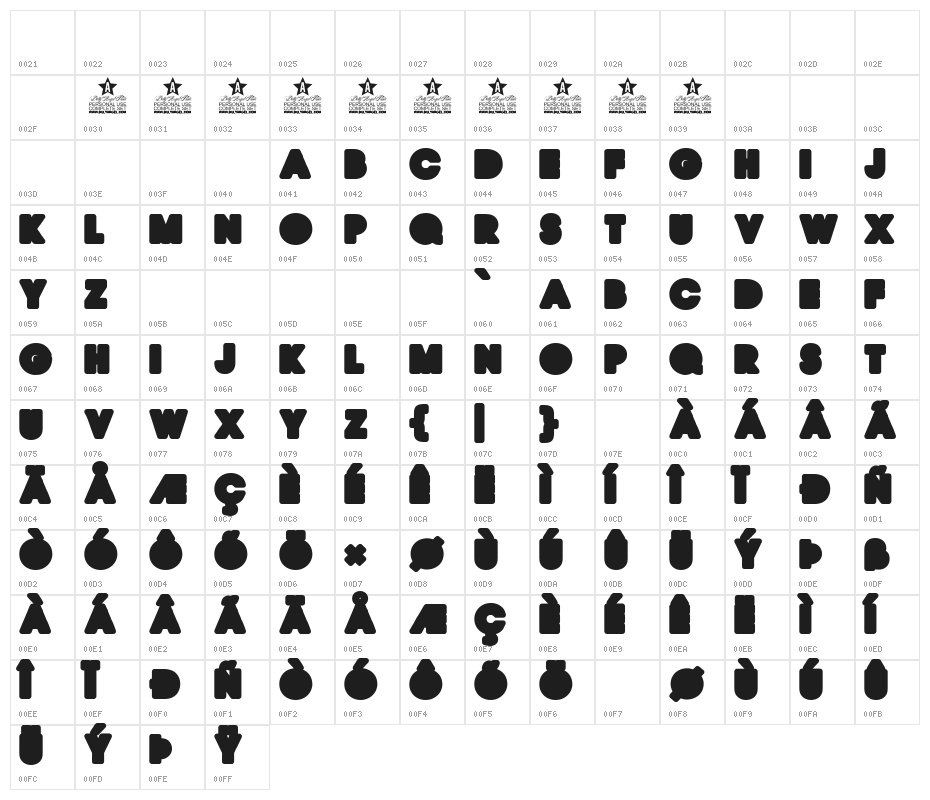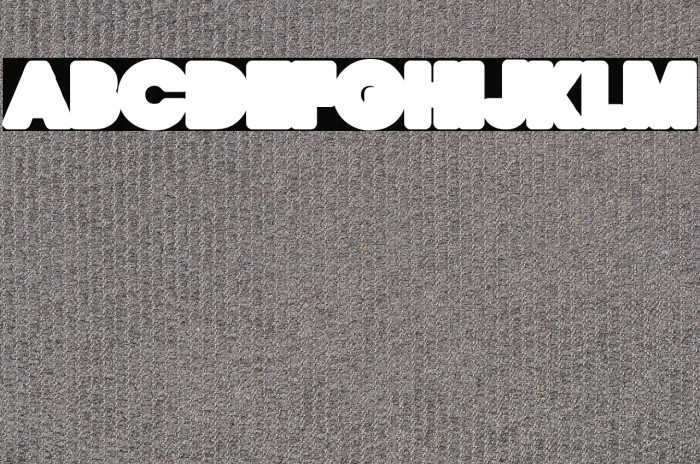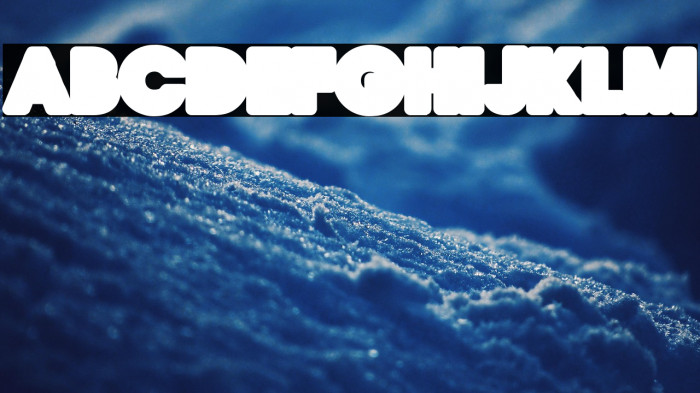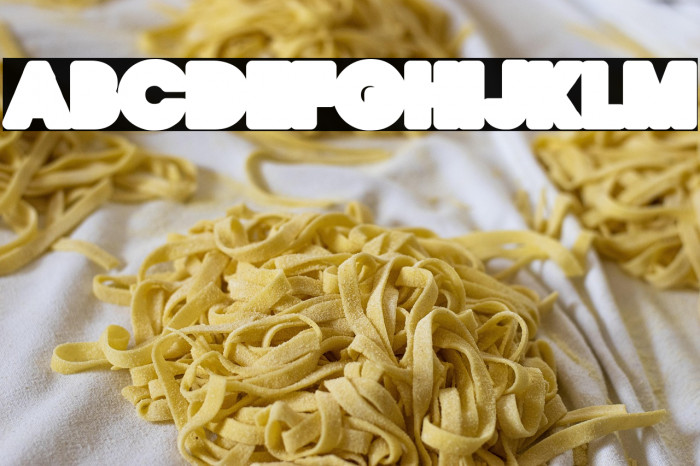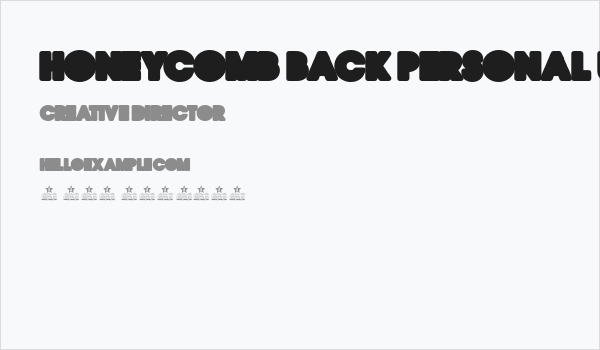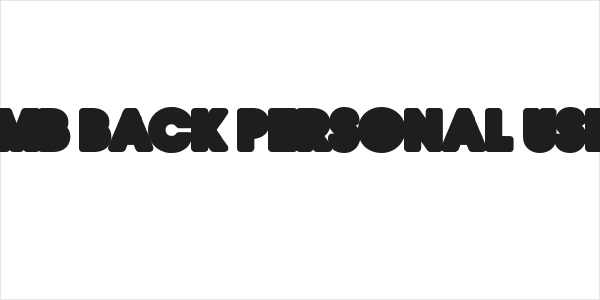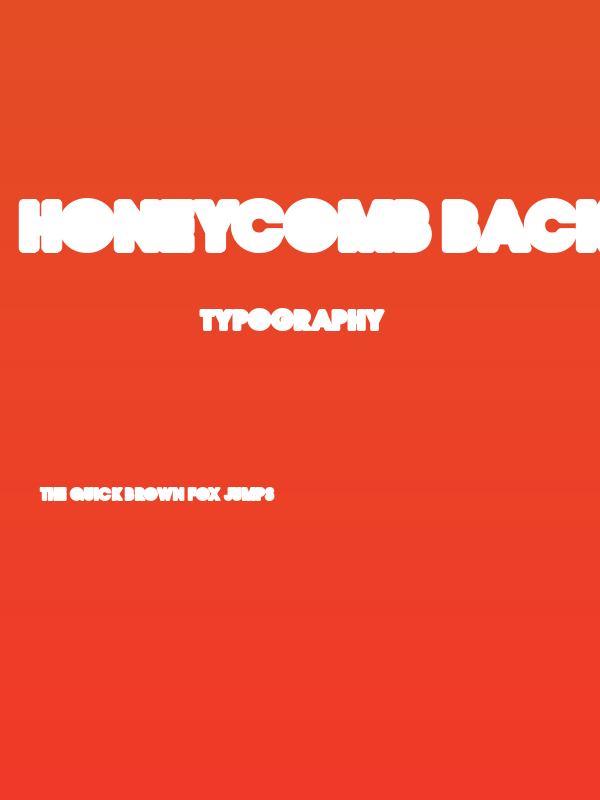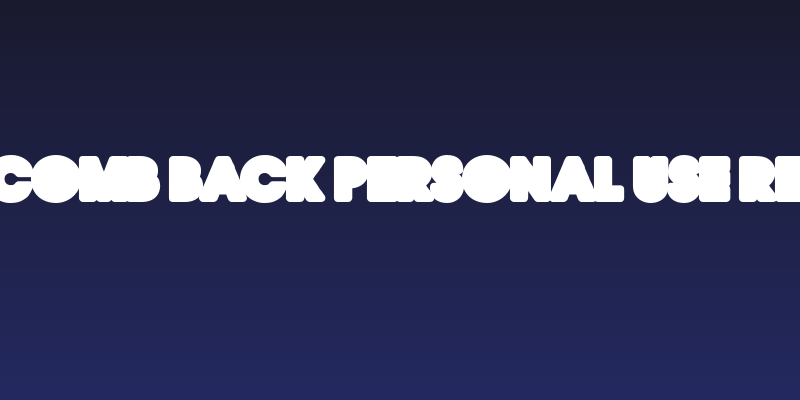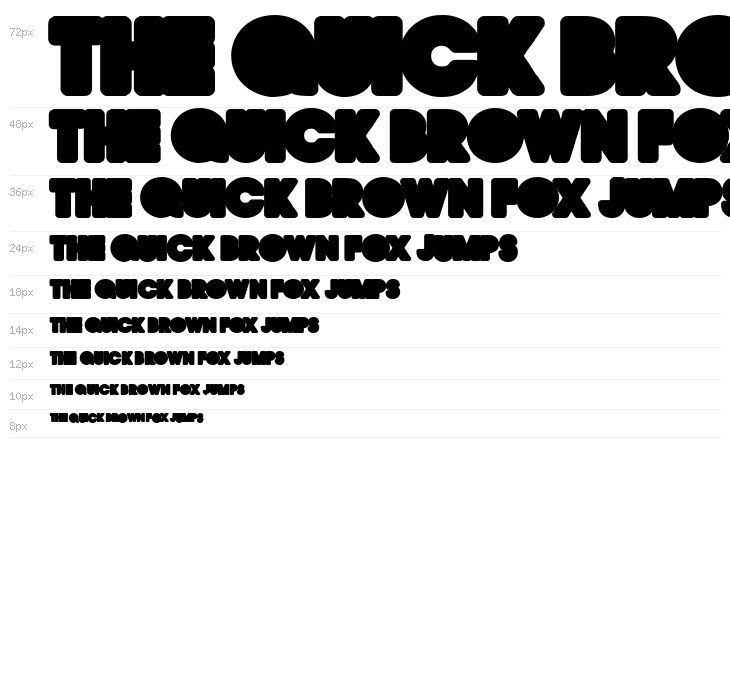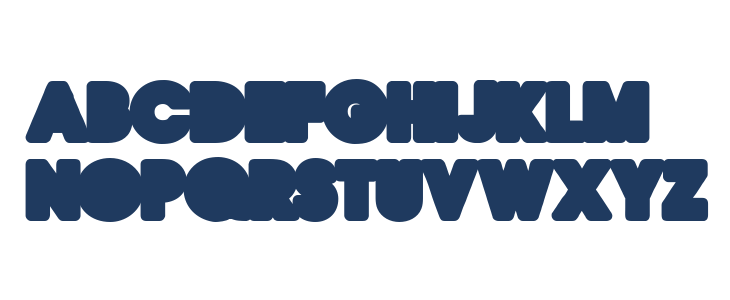
HONEYCOMB BACK PERSONAL USE Regular Font
HONEYCOMB BACK PERSONAL USE Regular Description
This font features a bold and playful design with thick, rounded characters that create a strong visual impact. The letters are uniformly wide, giving a sense of stability and balance. The style is reminiscent of retro or vintage aesthetics, with a modern twist that makes it suitable for contemporary designs. The absence of serifs and the uniform stroke width contribute to its clean and approachable look. This font is ideal for creating eye-catching headlines, posters, and branding materials where a bold statement is needed.
Overall StyleRetro, Modern
Use CaseHeadlines, Posters, Branding
Proposed ProjectsIdeal for posters, branding, headlines, and any design needing a bold, playful touch.